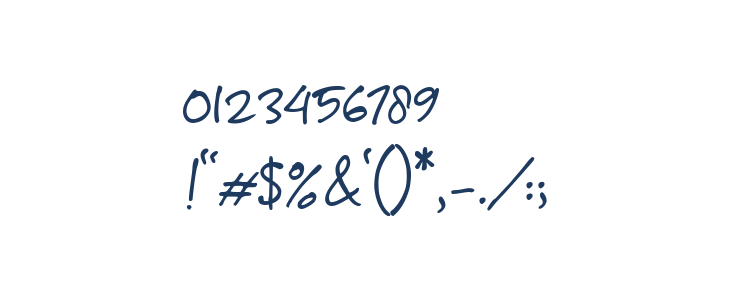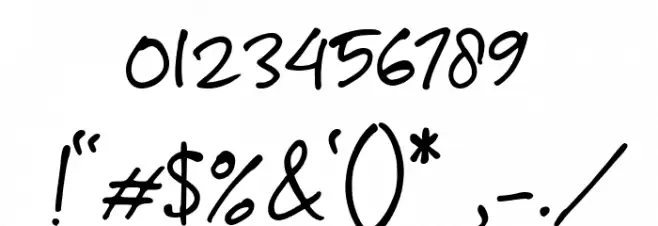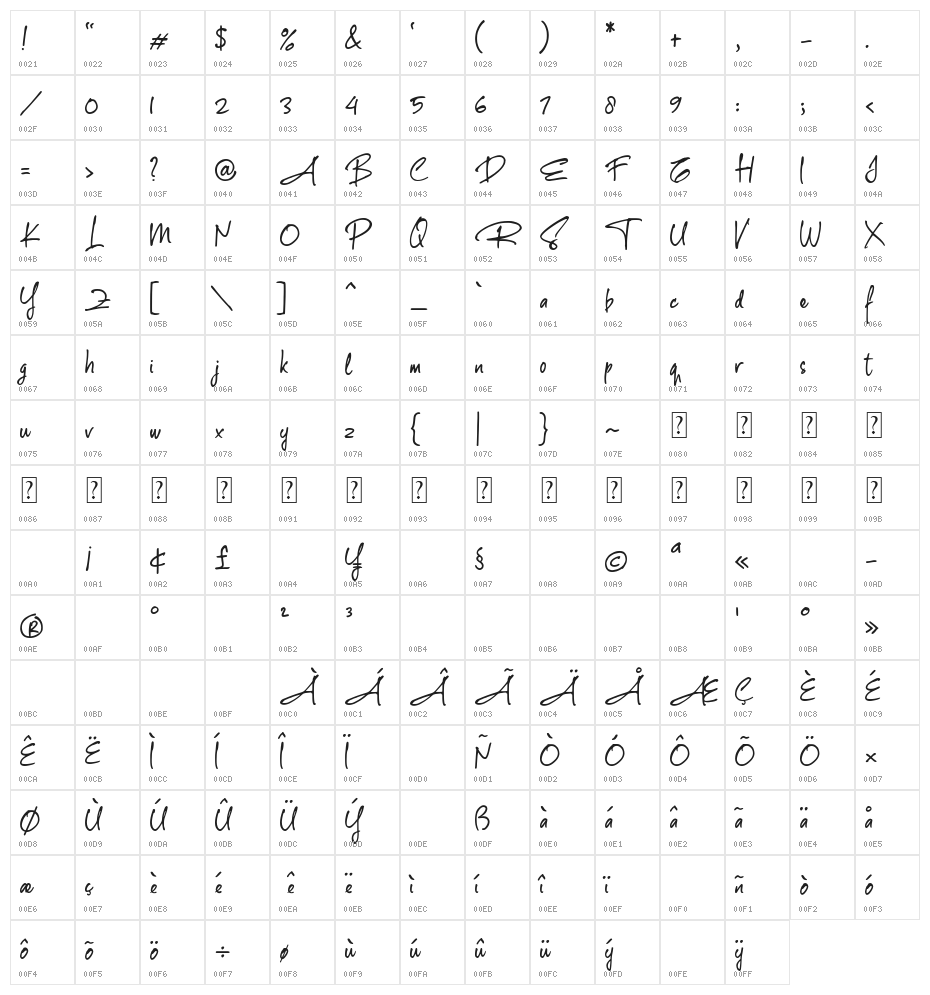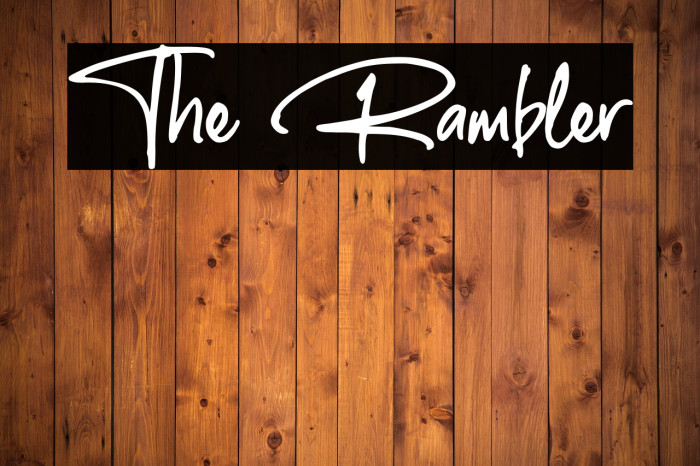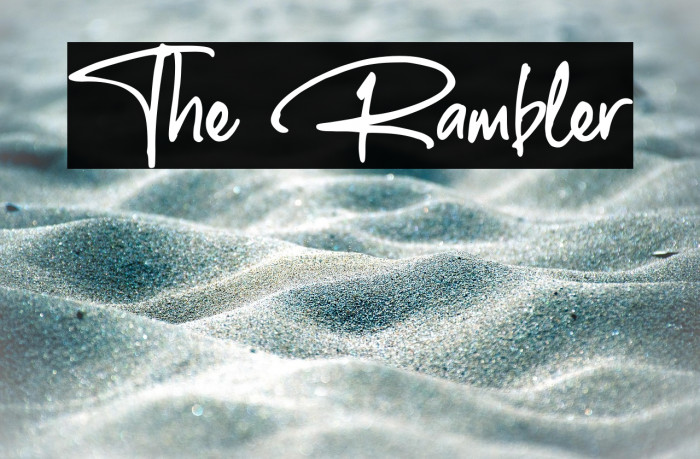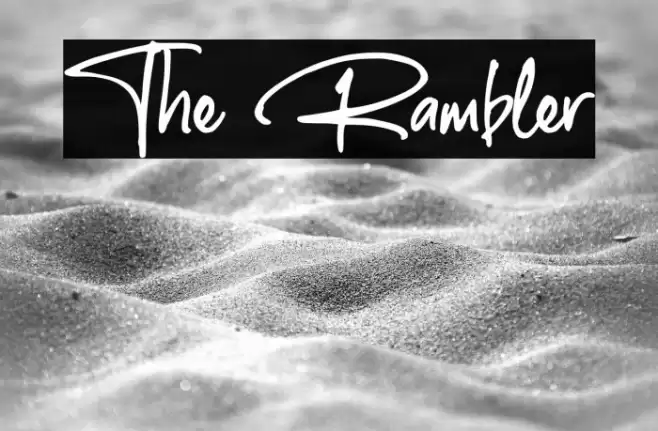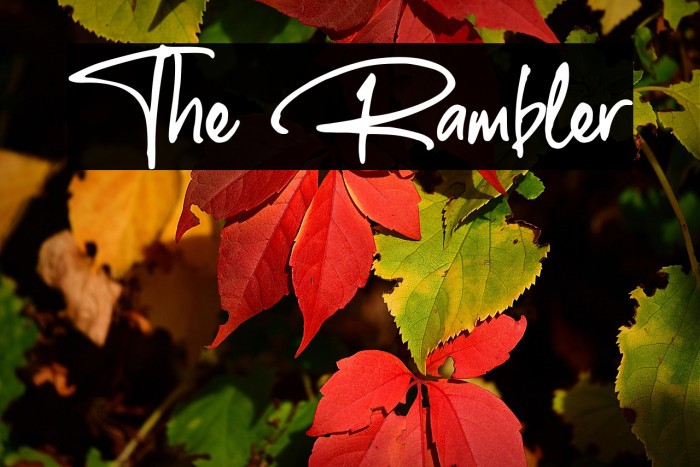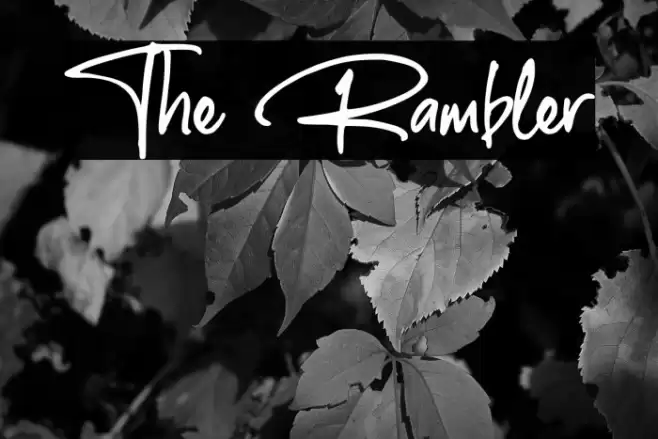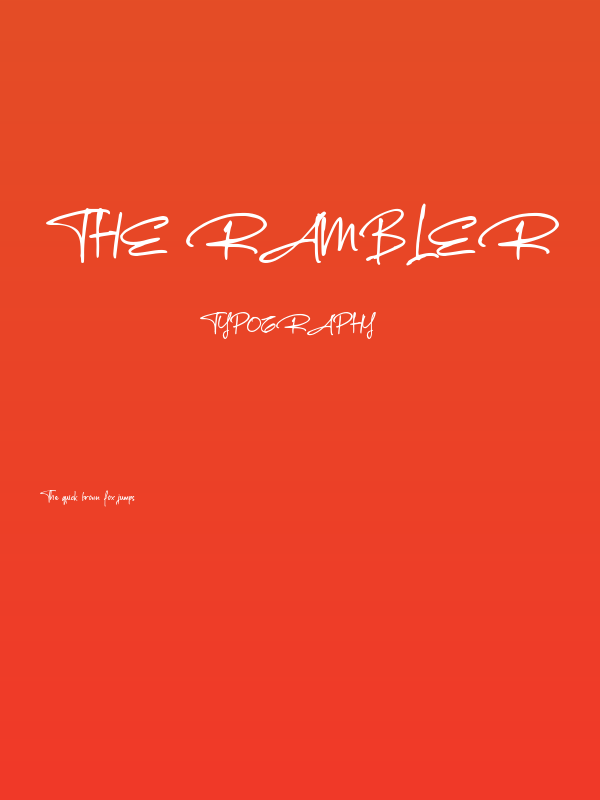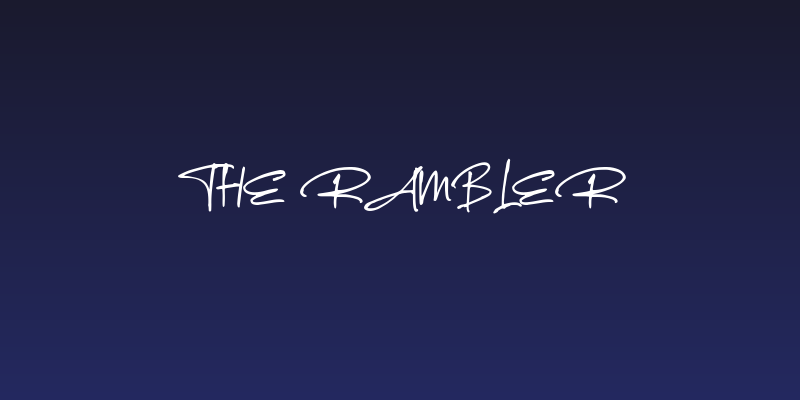
The Rambler Font
The Rambler Description
This font features a lively and dynamic handwritten style, characterized by its fluid and expressive strokes. The uppercase letters exhibit a playful yet elegant flair, with varying stroke thickness that adds a sense of movement and energy. The lowercase letters maintain a consistent flow, complementing the uppercase with their smooth curves and loops. The numerals are distinct and easy to read, while the special characters retain the font's overall whimsical aesthetic. This font's unique personality makes it suitable for creative and informal applications.
| Proposed Projects | Ideal for greeting cards, invitations, personal branding, and creative projects that require a personal touch. |